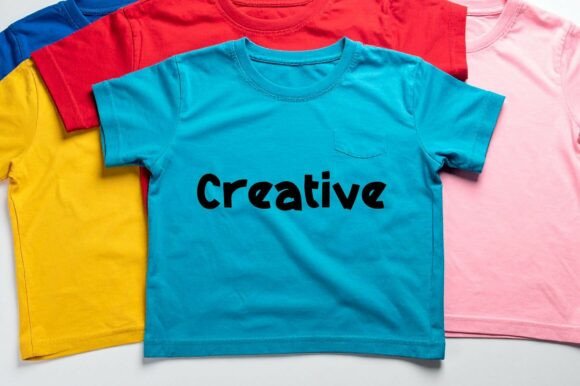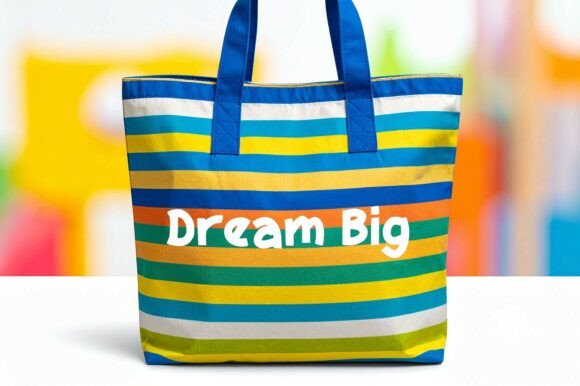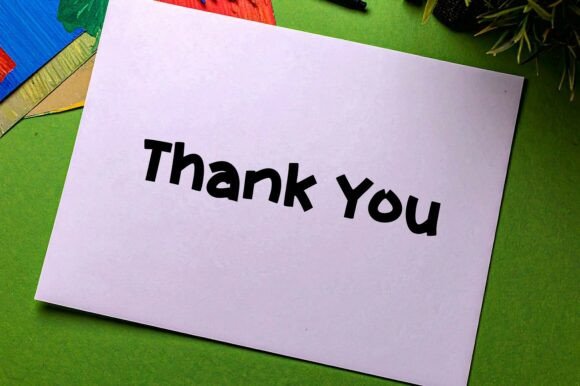
Getting Creative with Bebek Duck Font
Do you remember the thrill of discovering a new crayon or marker as a child? The world of color and possibility seemed endless, and every new creation felt like a masterpiece. For designers, that sense of excitement and playfulness is what drives us to craft engaging, memorable designs that capture our audience’s imagination. One tool that can help bring that magic to life is the Bebek Duck Font, a charming display font that embodies the spirit of childhood wonder.
Bebek Duck Font is designed to add a lighthearted, whimsical touch to any design, making it perfect for projects aimed at a young audience or those seeking a cheerful aesthetic. With its plump, rounded letterforms and playful personality, this font is a valuable addition to any designer’s toolkit, allowing them to infuse their work with a sense of fun and innocence that’s hard to resist.
Bebek Duck Font Key Features
- Font Size: 4,000+ glyphs, including Latin, Cyrillic, Greek, and more
- Unique Characteristics: Hand-drawn, whimsical design with a playful feel
- Font Style: Casual, informal font perfect for creative and design projects
Bebek Duck Font Review
Overall, I think the Bebek Duck Font has some nice qualities, but it also has some limitations. Let’s start with the good stuff!
- ✨ The font is super cute and playful, perfect for children’s books, nursery decor, or any project that needs a touch of whimsy.
- ✨ The font is highly customizable, allowing you to adjust the size, color, and style to fit your design needs.
- ✨ The font is relatively easy to read, even at smaller sizes, making it a great choice for text-heavy projects.
Now, let’s talk about the limitations:
- ⚠️ The font is quite bold and graphic, which can make it difficult to use in projects where a more subtle font is needed.
- ⚠️ The font lacks a regular style, so you’ll need to use the bold style for most text.
- ⚠️ The font may not be suitable for professional or formal projects, as it’s more suited to a playful or creative tone.
In terms of overall impression, I think the Bebek Duck Font is a great choice for the right project. It’s perfect for projects that need a fun, playful touch, but may not be the best fit for more formal or professional work.
To get the most out of the Bebek Duck Font, use it in combination with bold or italic text to create a playful contrast. You can also use it for headings, subheadings, and body text to add a personal touch to your designs.
The Bebek Duck Font is perfect for:
* Children’s books and educational materials
* Playful advertising and marketing campaigns
* Personalized invitations and party decorations
* Creative writing and journaling